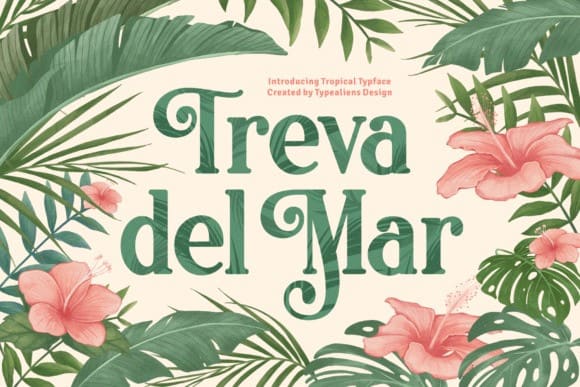
Treva Del Mar Serif Font
Treva del Mar Font is elegant serif family with the modern typeface concept. Treva del Mar very easy to use and has been accompanied by elegant and classy alternatives.
Treva del mar font is suitable for display fonts, logotypes, designs for packaging, label design, or food-related designs.